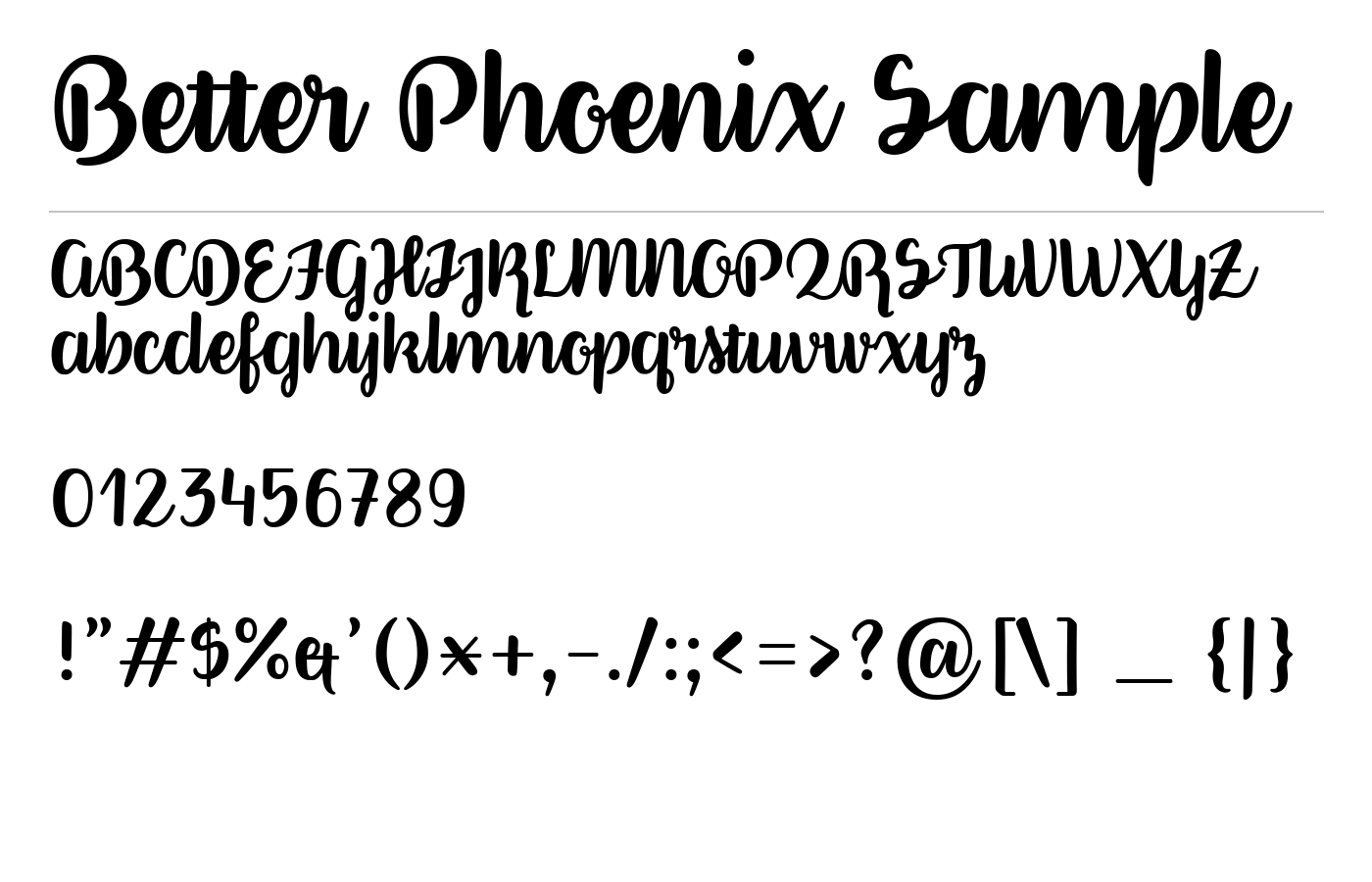
Better Phoenix Sample is a lively script font with a bold, rounded style that feels friendly and approachable. Its smooth, flowing letterforms and moderate contrast give it a casual yet polished look, making it ideal for branding, invitations, and creative projects seeking a warm, personal touch. This font works well in both headlines and display uses where a playful and inviting tone is desired.
Better Phoenix Sample Font
About Better Phoenix Sample Font
| Font family | Better Phoenix Sample Font |
| Designer | Ana Parracho |